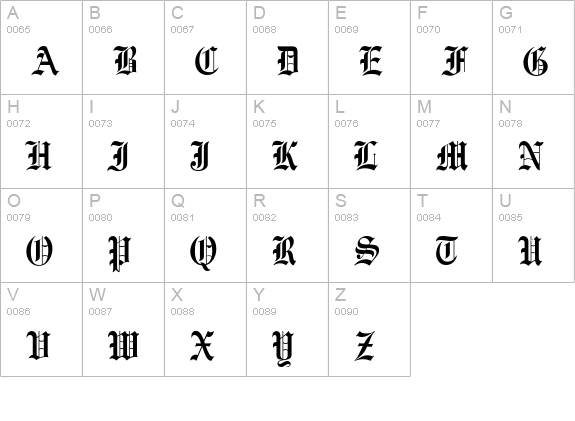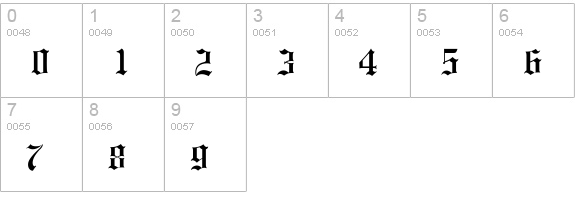
MEngraversOldEnglish Font Details
MEngraversOldEnglish font is a stunning display typeface that exudes elegance and sophistication. With its intricate details and vintage charm, this font is perfect for creating timeless designs that demand attention. The ornate flourishes and classic serifs of MEngraversOldEnglish add a touch of old-world charm to any project, making it ideal for invitations, signage, branding, and more. The best part? MEngraversOldEnglish font is available for free download at FontsMarket.com. Now you can elevate your designs with this exquisite typeface without breaking the bank. Don't miss out on the opportunity to add a touch of class to your projects with MEngraversOldEnglish font. Download it today and unleash your creativity!